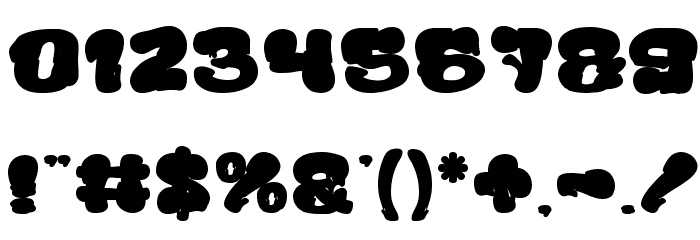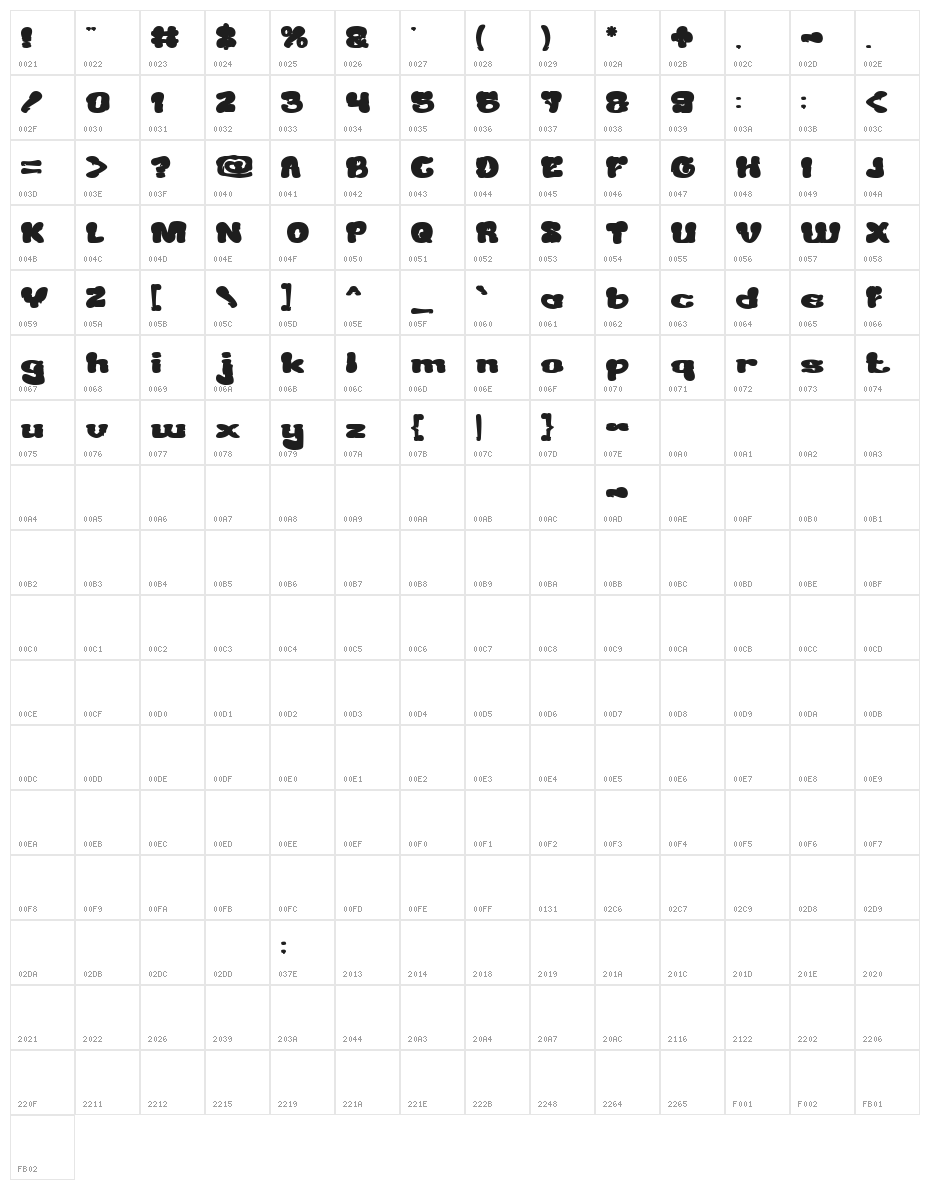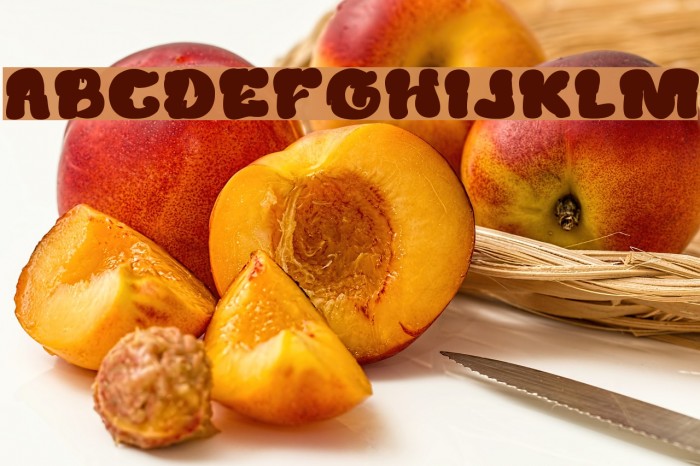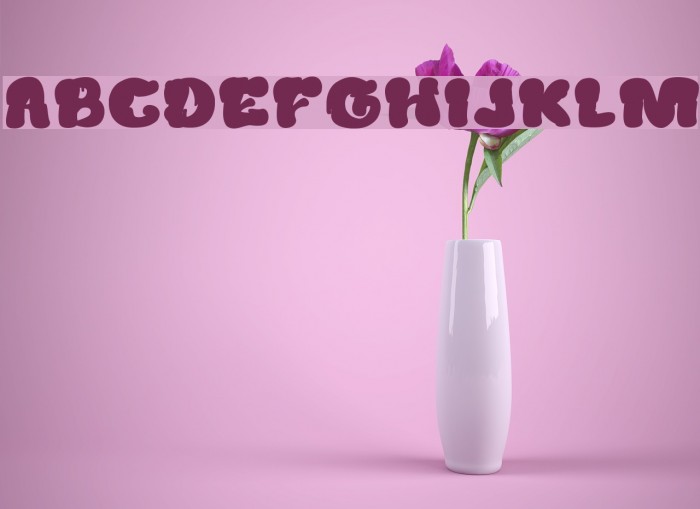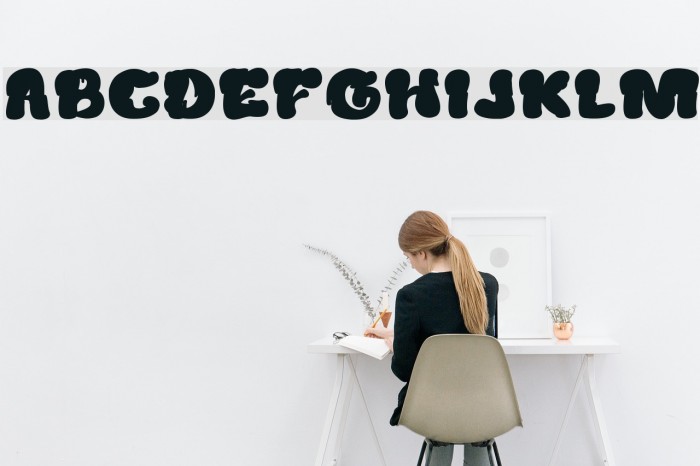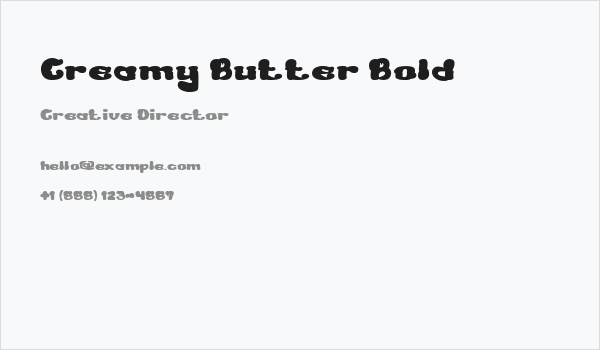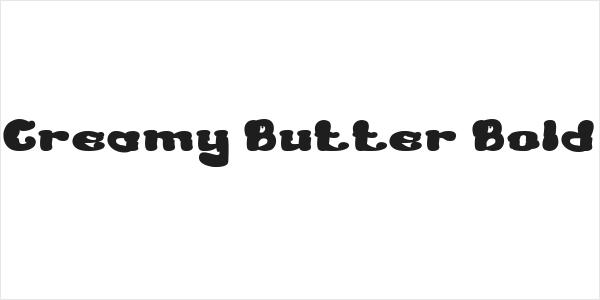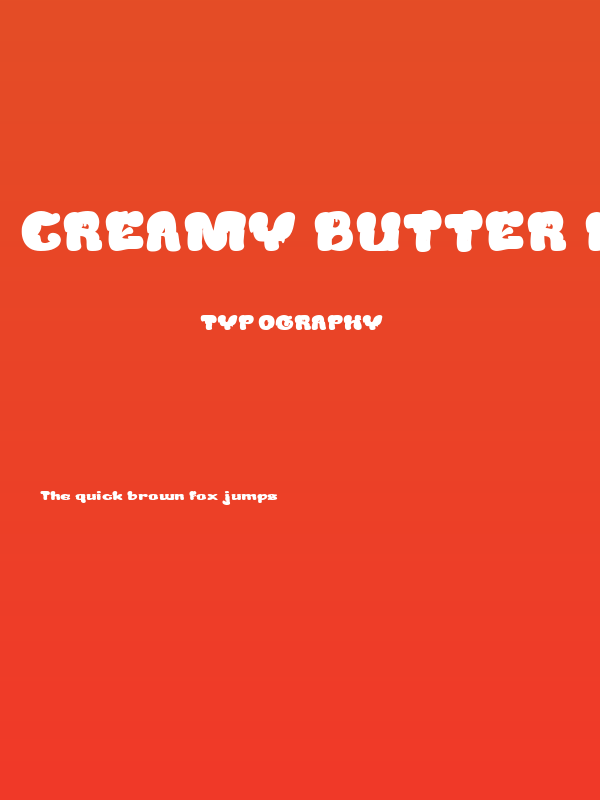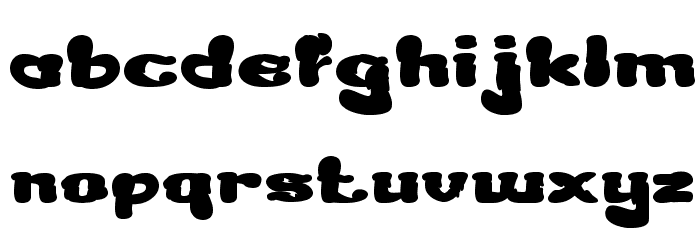
Creamy Butter Bold Font
Creamy Butter Bold Description
This font features a bold and playful design with rounded, bubbly letterforms that give it a soft and friendly appearance. The characters are thick and substantial, with a consistent stroke width that adds to its boldness. The rounded edges and smooth curves create a sense of warmth and approachability, making it ideal for informal and fun projects. The font maintains a uniform weight across all characters, ensuring readability while adding a touch of whimsy. Its unique style is both eye-catching and memorable, perfect for making a statement.
| Overall Style | Playful, Fun |